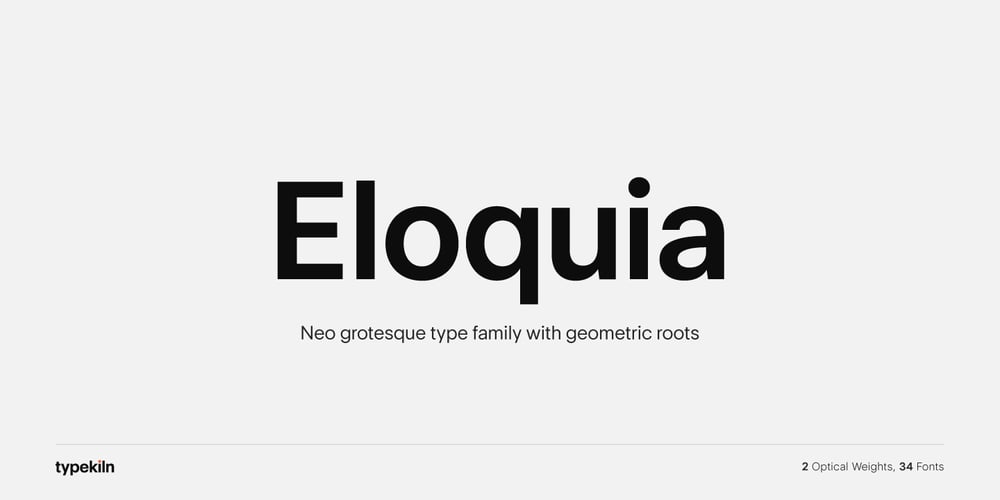
Eloquia
Eloquia font
Eloquia Font Family was designed by Krishna Kireeti and published by Typekiln. Eloquia contains 34 styles and family package options. Eloquia is a neo-grotesque sans serif type family with geometric roots. Though it’s a neutral typeface the unmistakable influence of geometric shapes gives it warmth and a unique flavor. With 34 fonts in total, Eloquia comes in two distinct optical sizes Text and Display. The Display styles are spaced tightly keeping headlines in mind while the Text styles feature a larger x-height and wider apertures with loose spacing making them highly legibility at small sizes.The elegant balance of neutrality and modernism makes Eloquia extremely versatile in its functionality. Whether it’s being in the spotlight or in the background blending in, Eloquia can do it all.Eloquia is equipped with powerful OpenType features like Small Caps, Capitals to Small Caps, Stylistic Alternates, Ligatures, Case Sensitive Forms, Superscripts, Subscripts, Numerators, Denominators, Fractions, Ordinals, Proportional Lining, Tabular Lining, Oldstyle Figures, Scientific Inferiors, Localised Forms, Historical Forms, Capital Spacing and more. Eloquia supports more than 88+ languages including all major Latin languages.The Eloquia Display ExtraBold & Eloquia Text ExtraLight are completely free of charge.